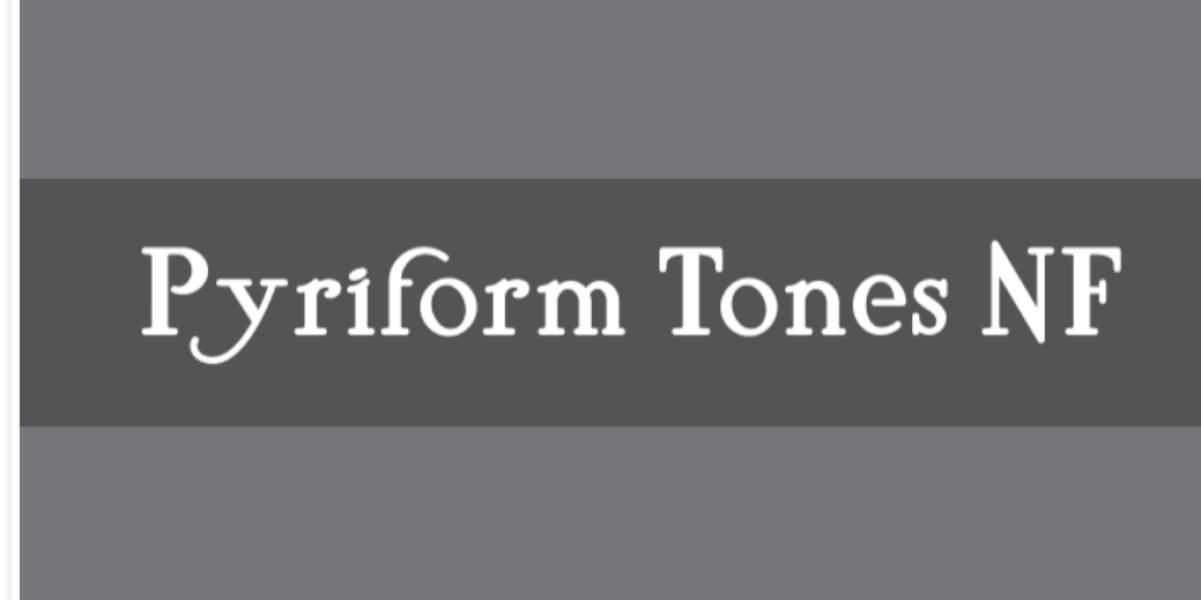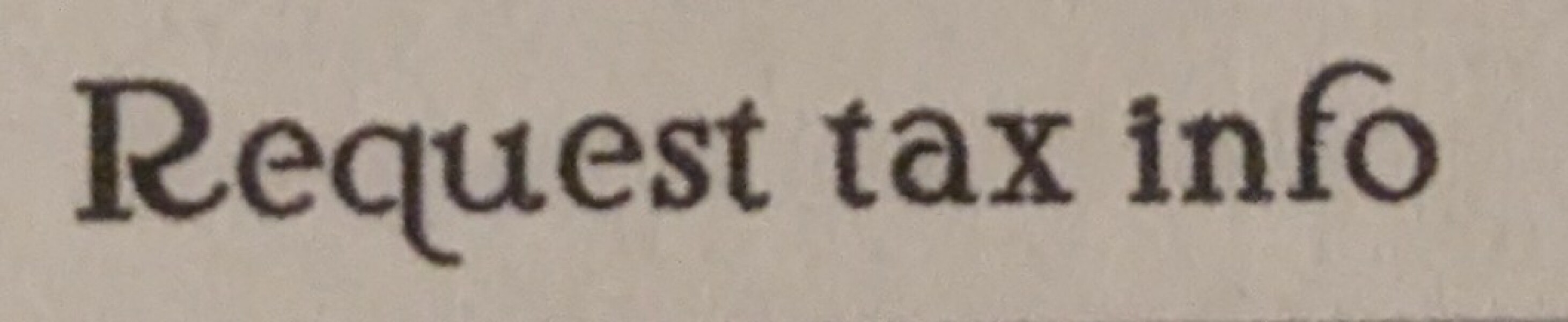
What is this font?
It was on my old laptop that died😭
What is this font?
I think its serif??
This?
I popped it in www.whatfontis.com/ came up with misty meadow regular
This?
Yes! Thank you
I popped it in www.whatfontis.com/ came up with misty meadow regular
Very similar. Thanks!